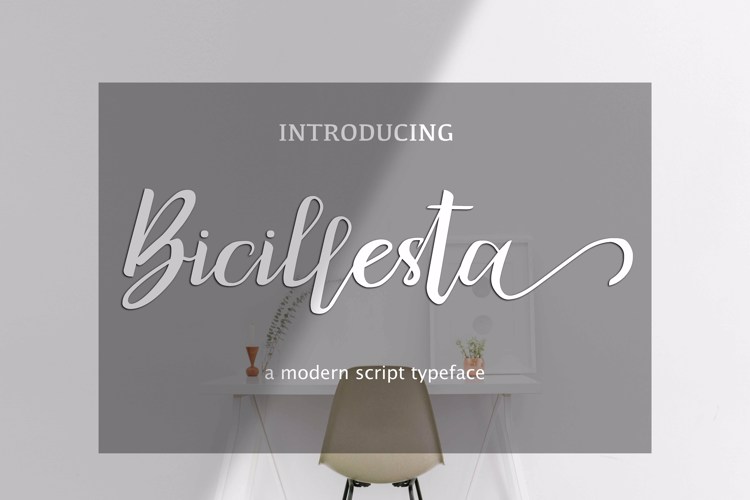
bicillesta Font
Introducing a new modern typeface script, Bicillesta! Bicillesta is perfect for elegant logos, upscale packaging, wedding stationery, websites, and any other projects requiring a handwritten and luxurious touch. An alternates & ligatures are included so that you can give your logo or name a custom, hand-calligraphy look.